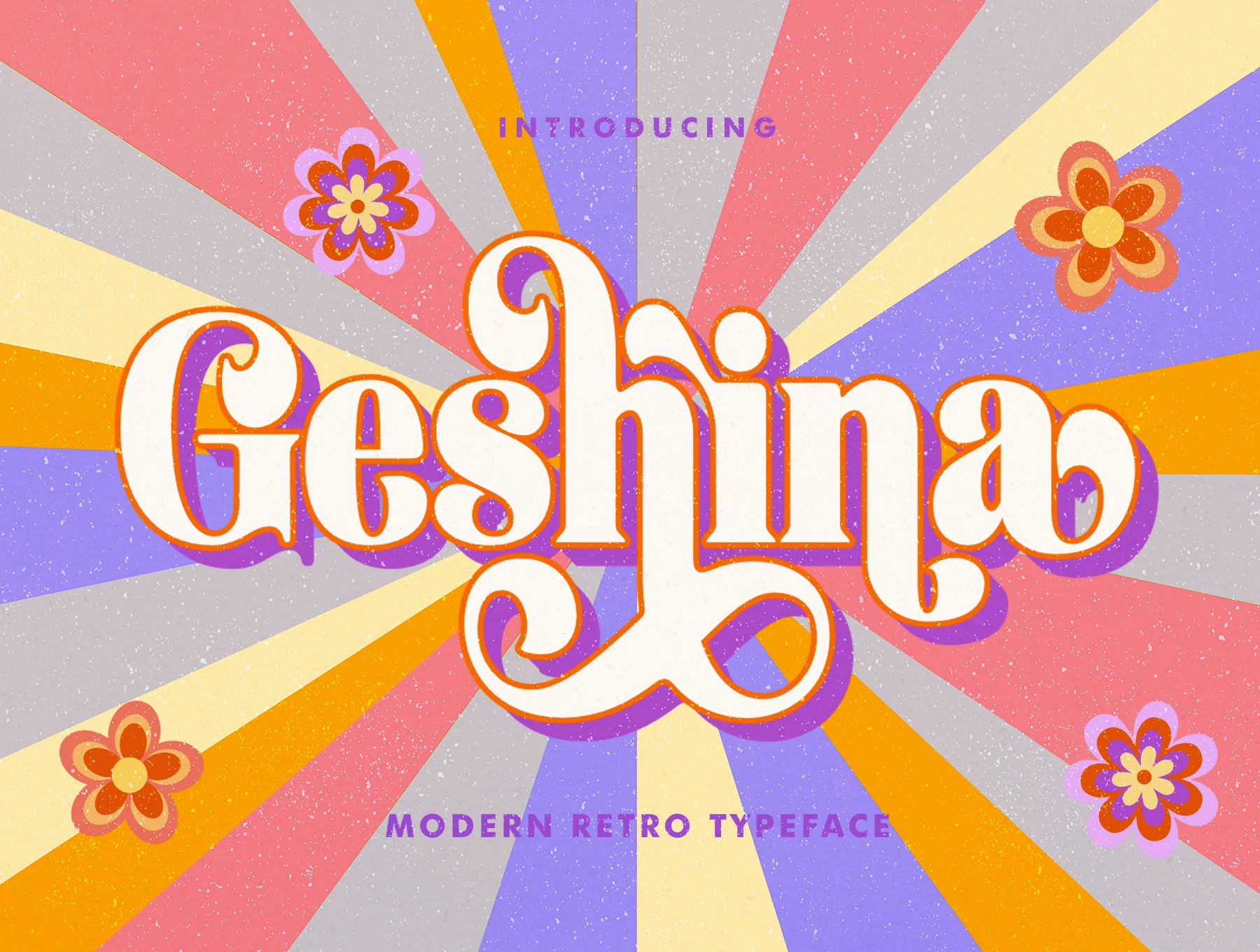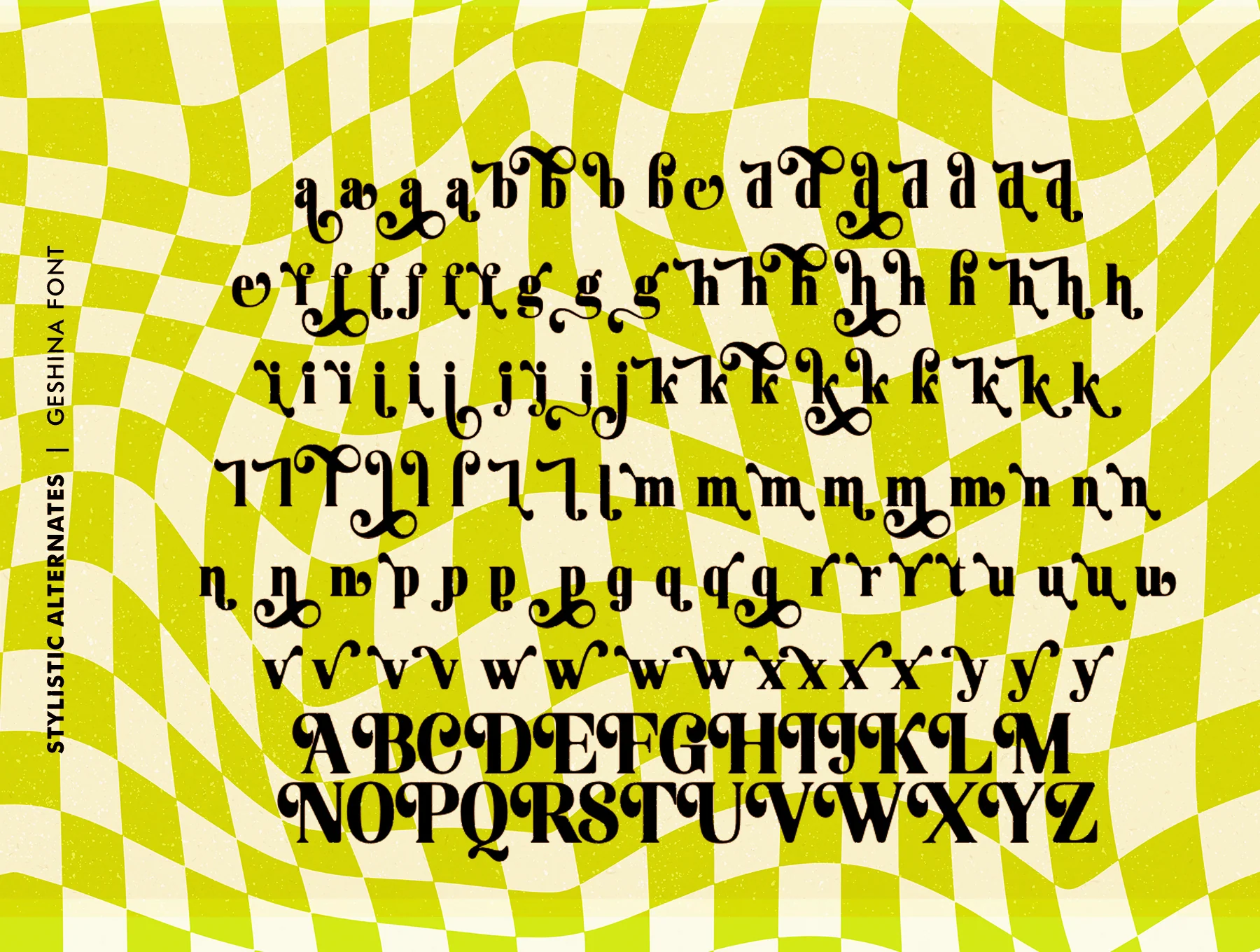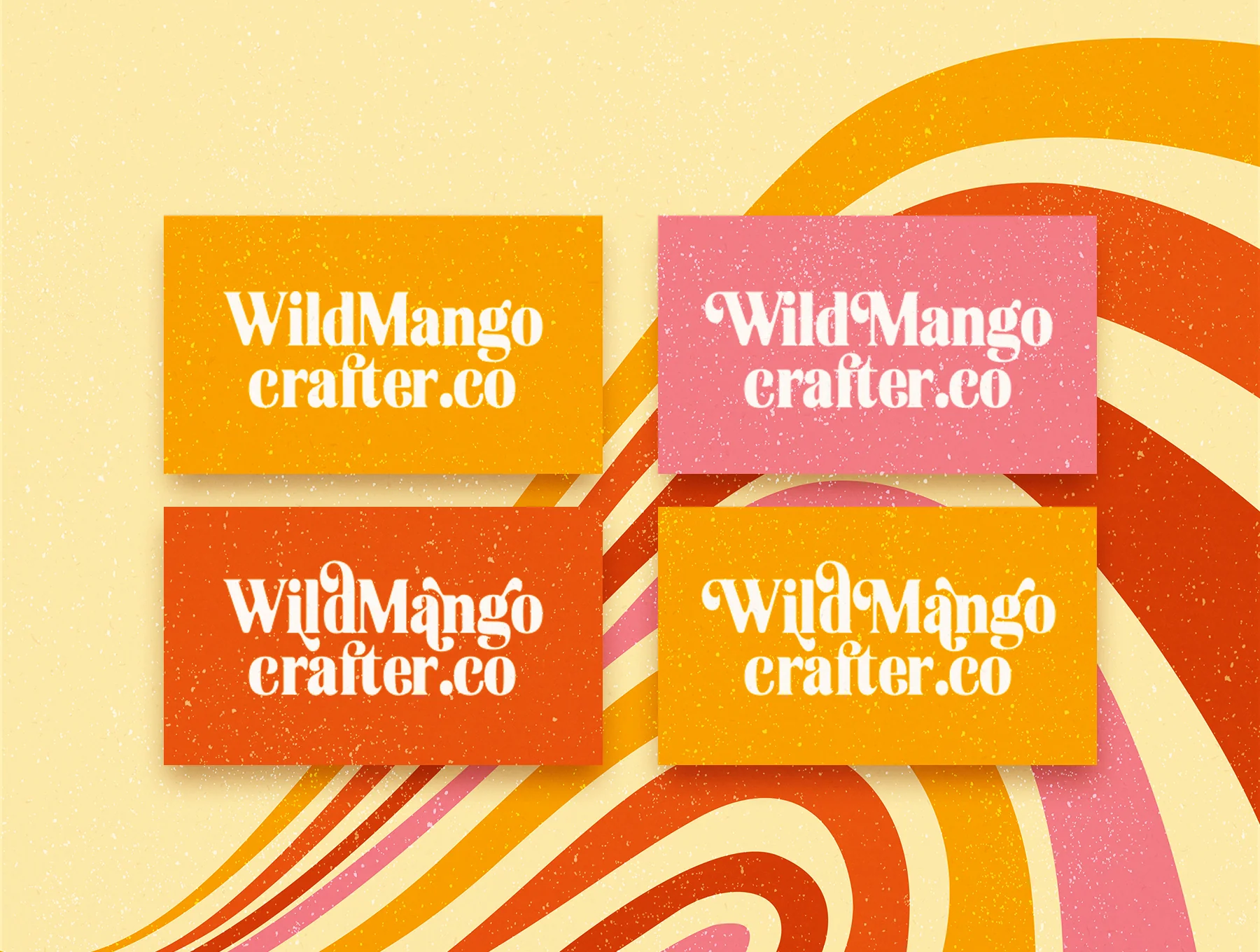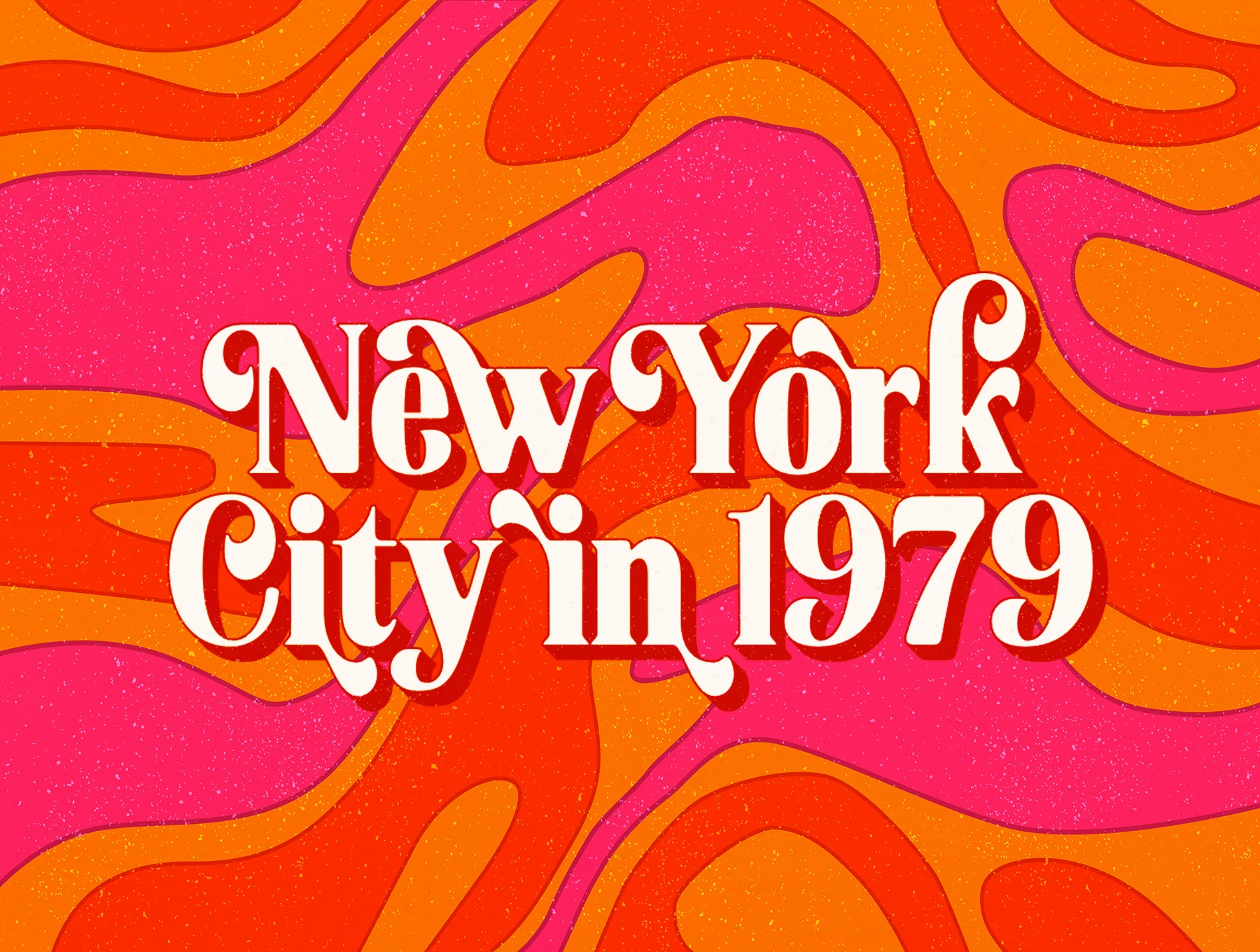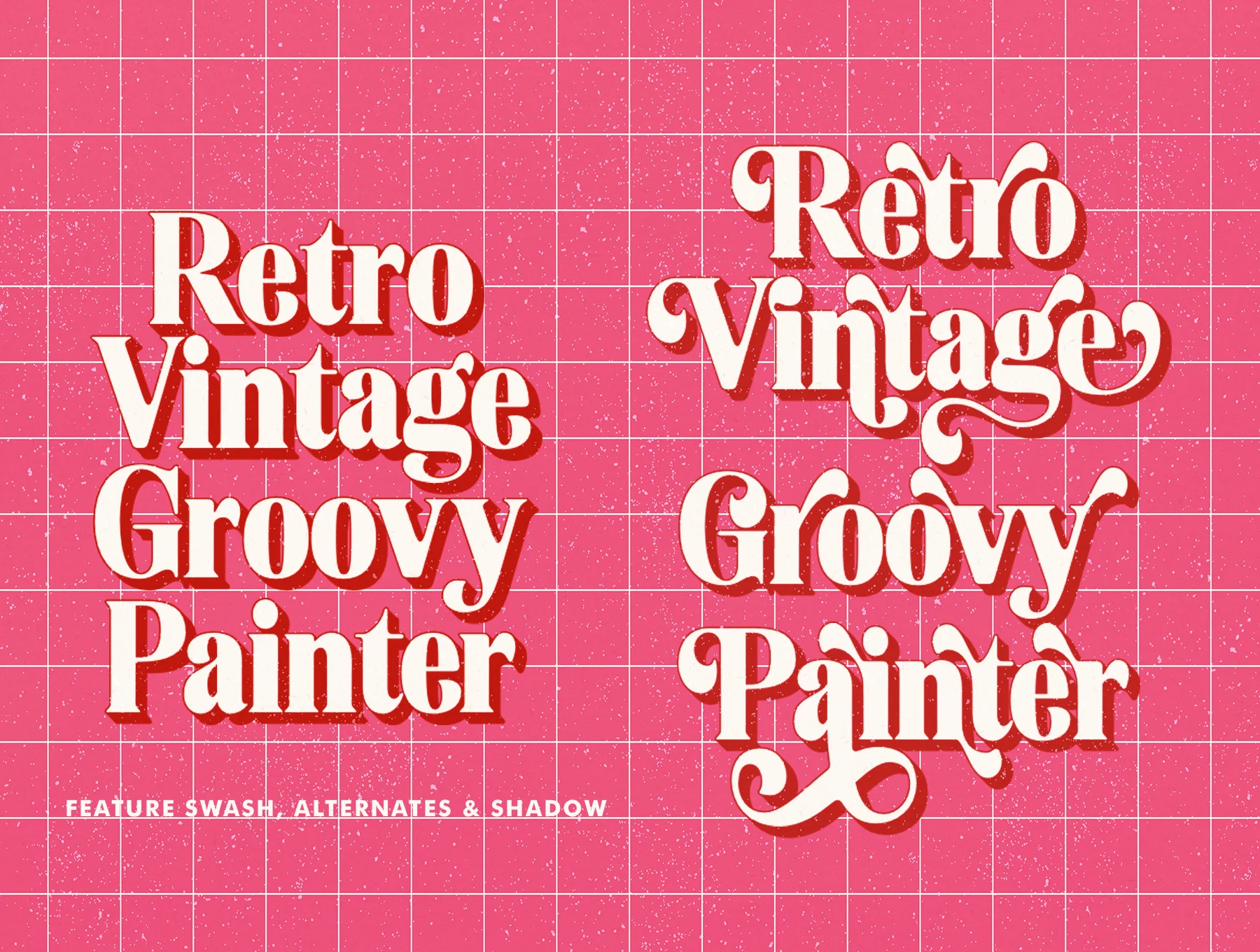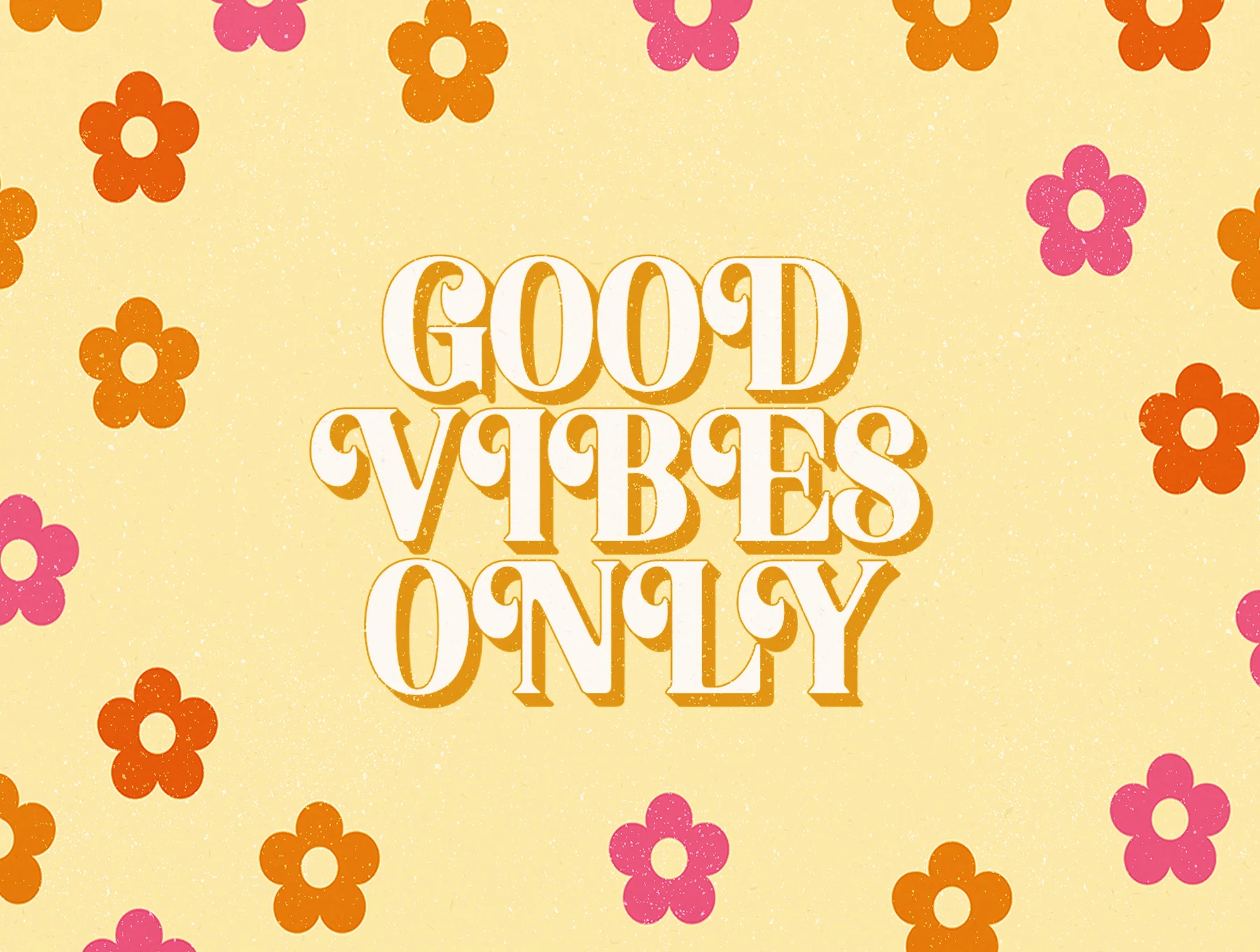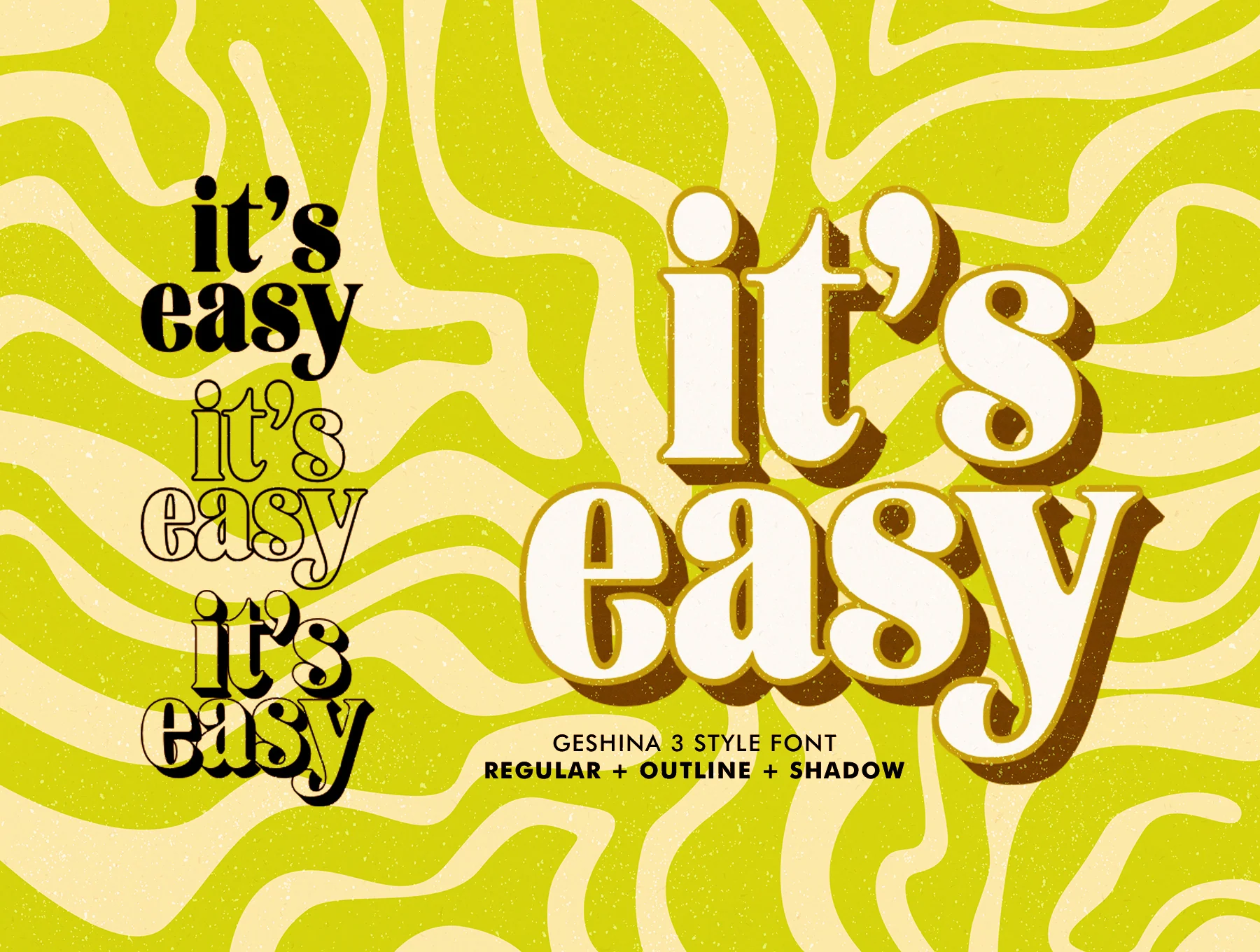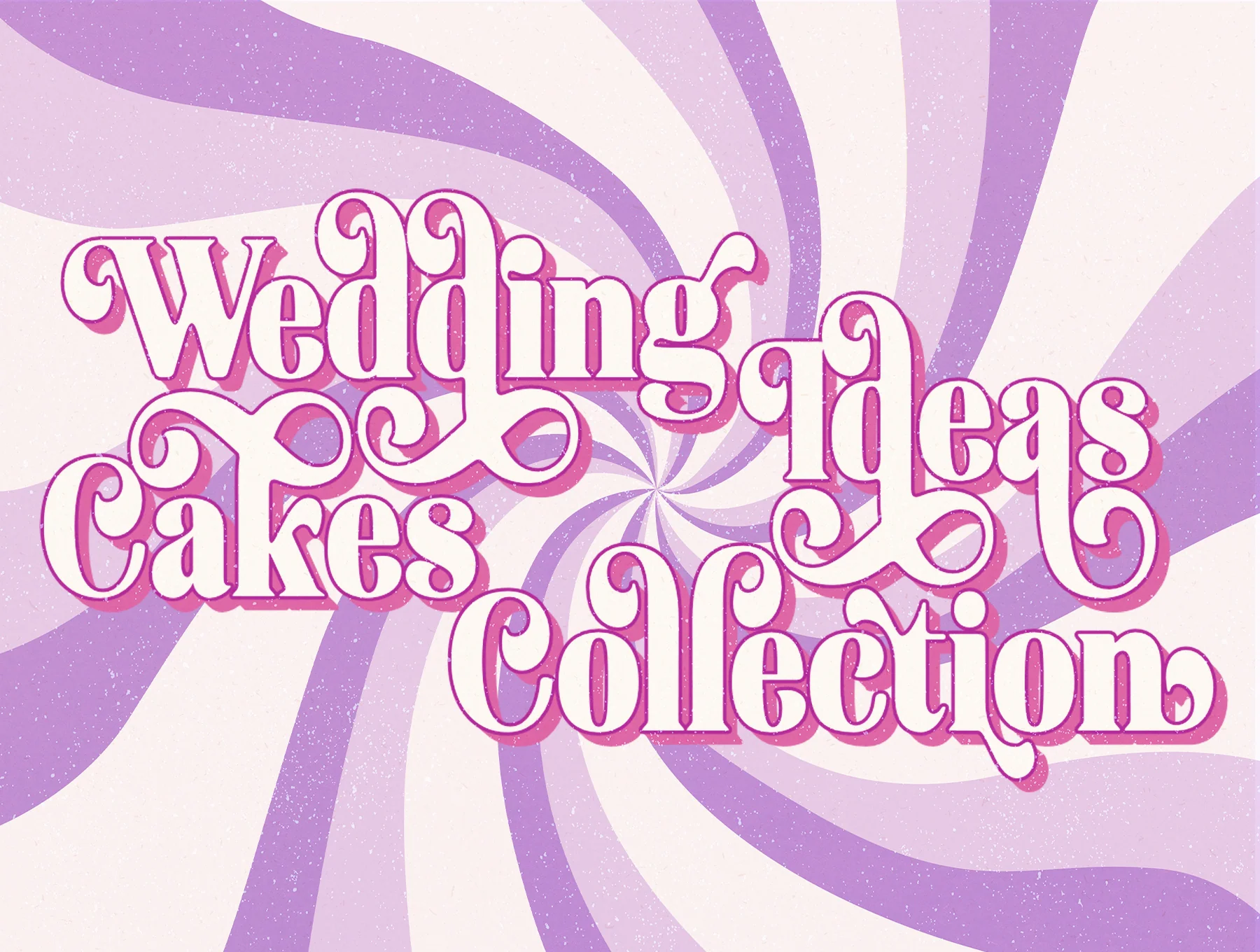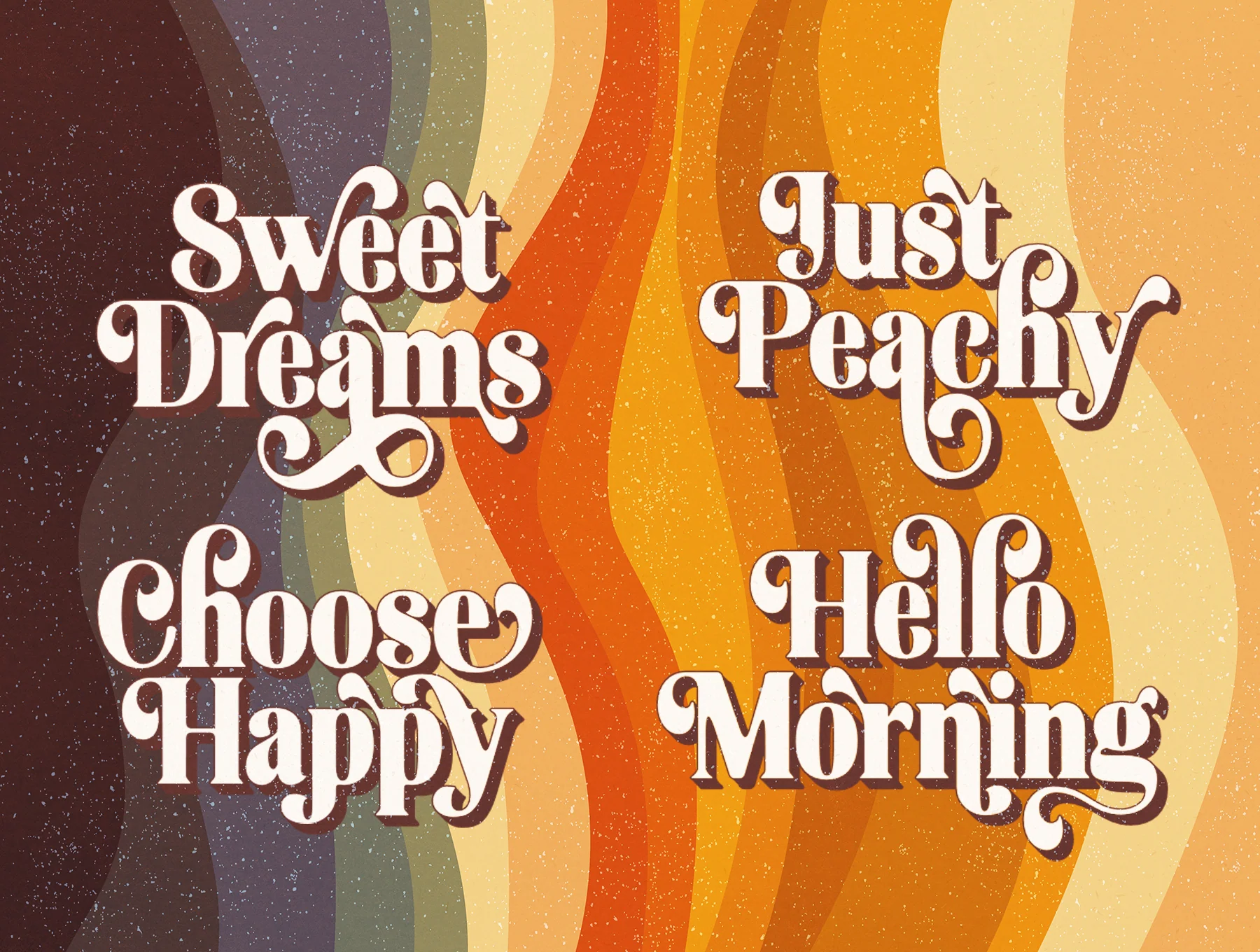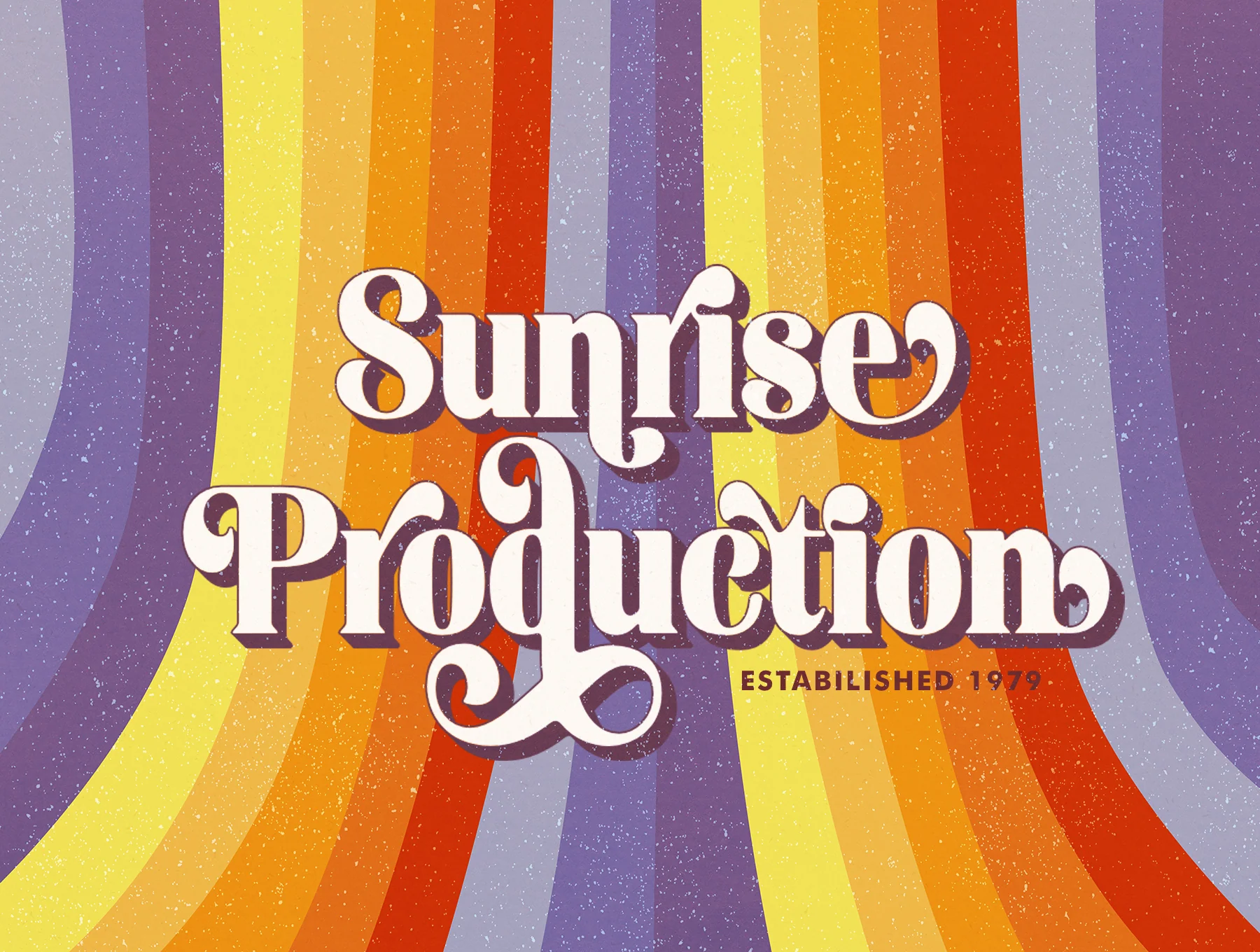
Geshina Typeface
Vintage serif typeface with many flowing, rounded letterforms
Capital and Small Letters
Digits and Symbols
Standard, Contour and Shadow
Geshina Font With Shadow brings a polished, upbeat 70s feel through its flowing retro serif letterforms. Ideal for vintage-style designs, it comes in regular, outline, and shadow versions. The set includes uppercase and lowercase letters, numerals, punctuation, ligatures, alternates, swashes, and multilingual characters.